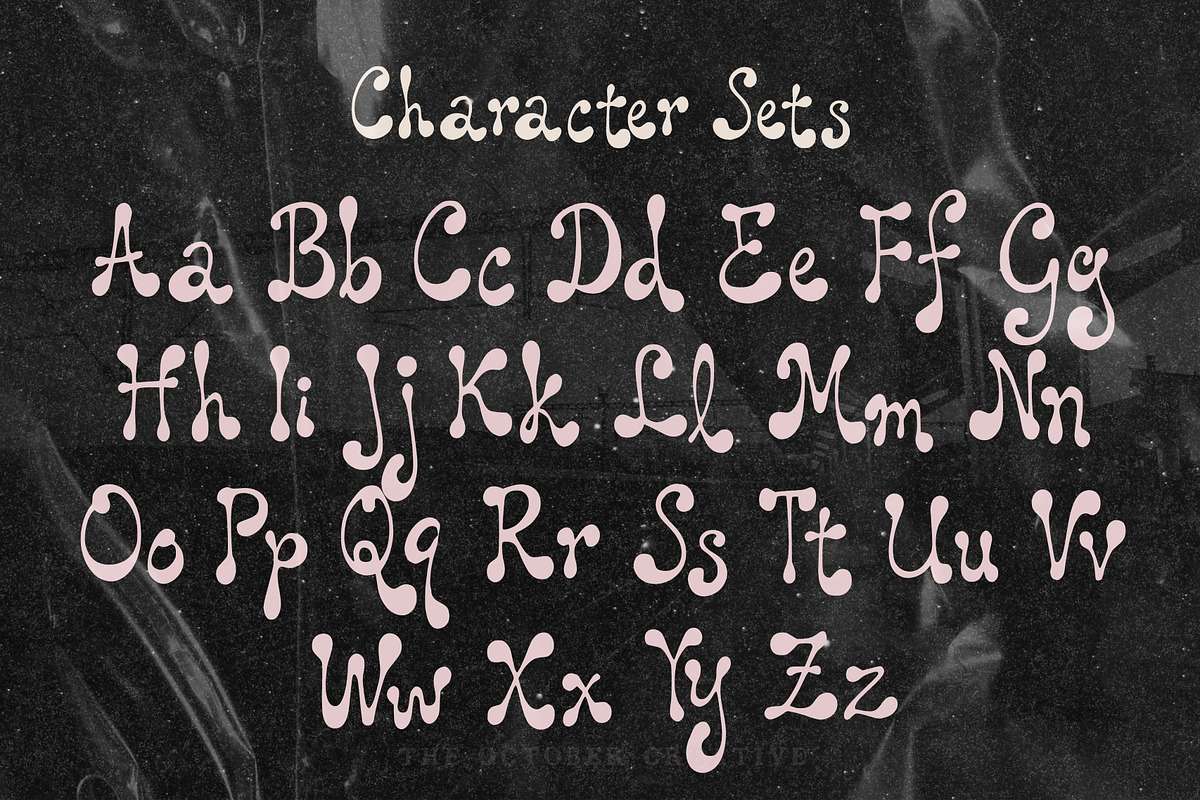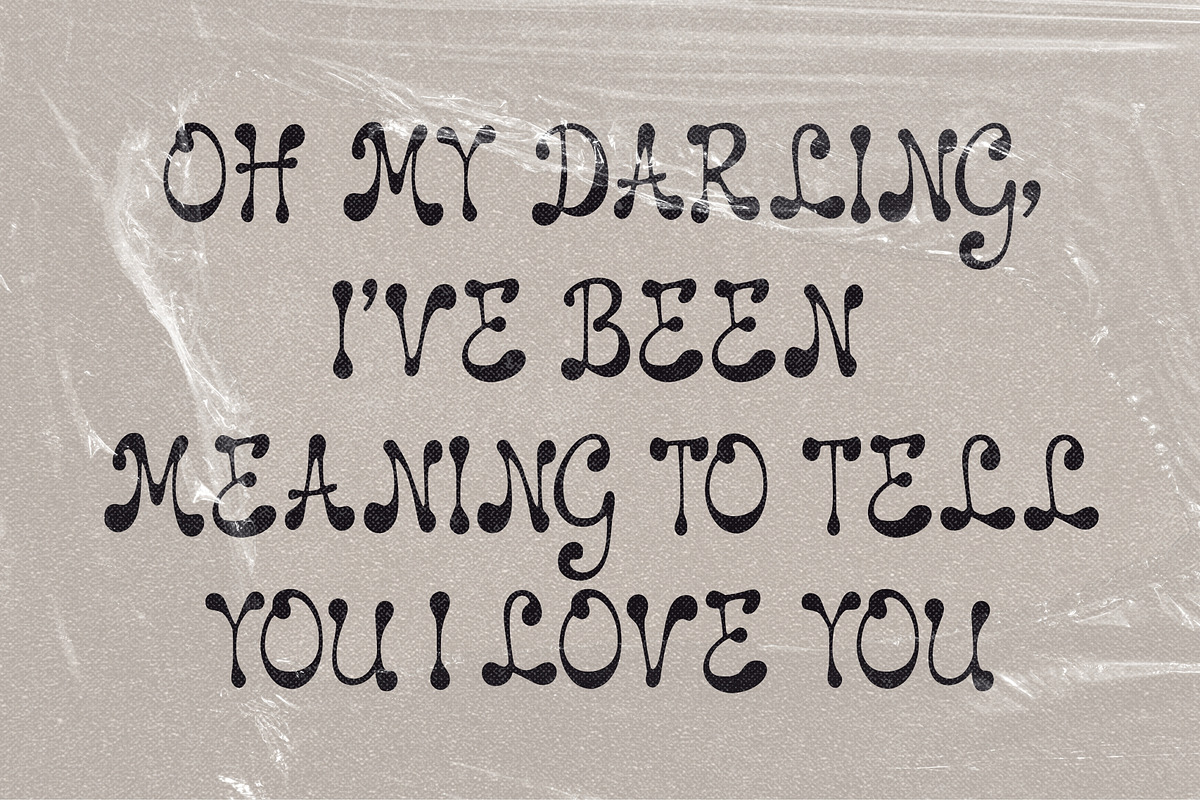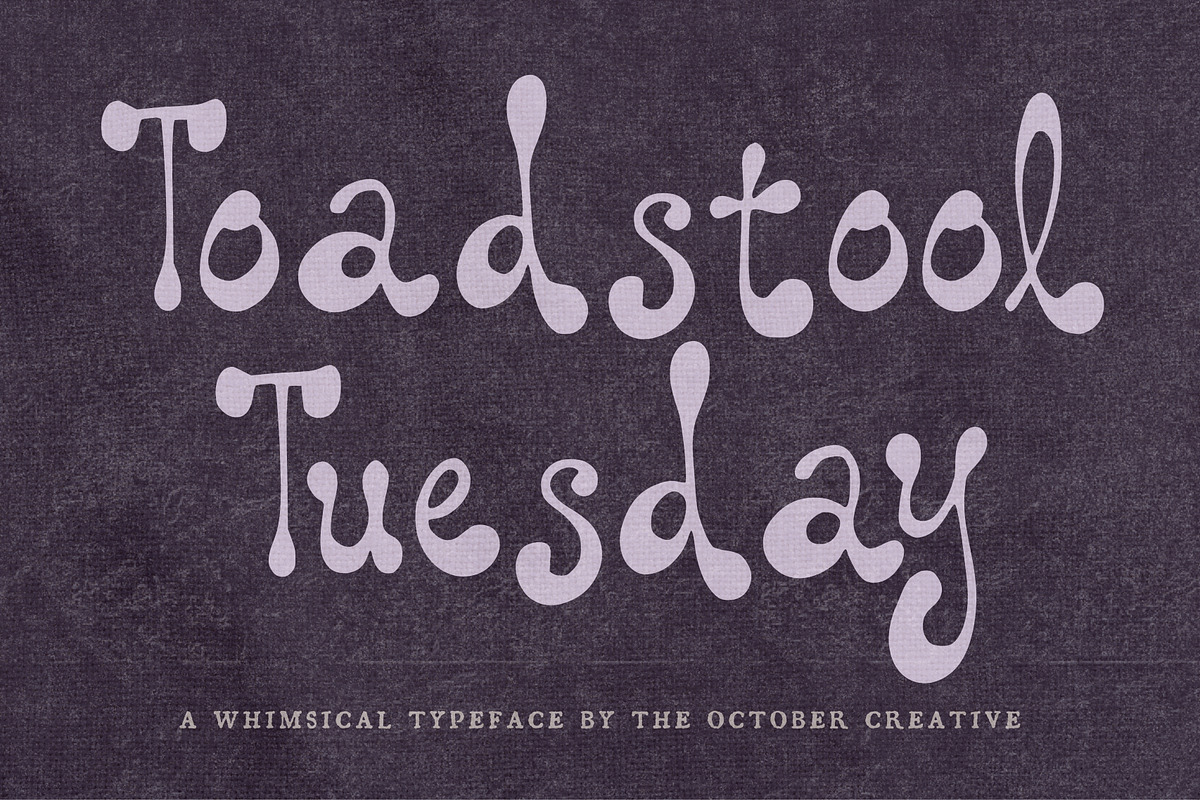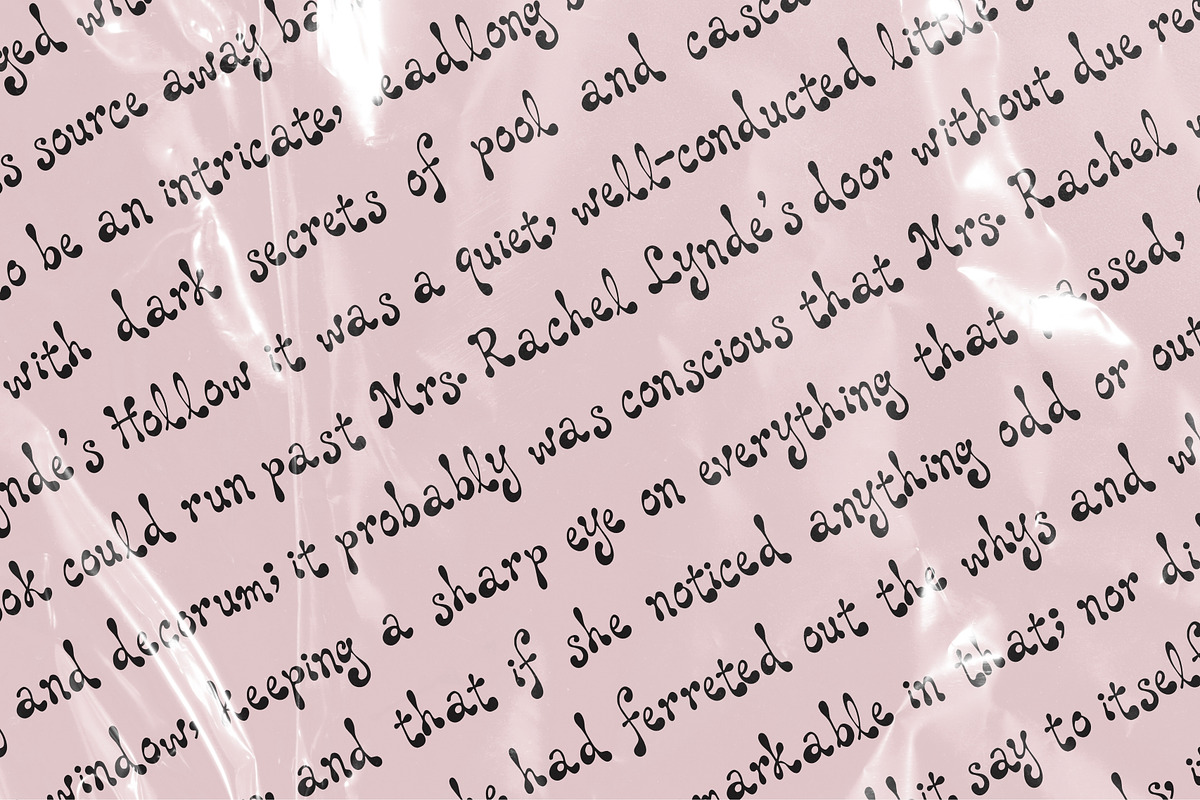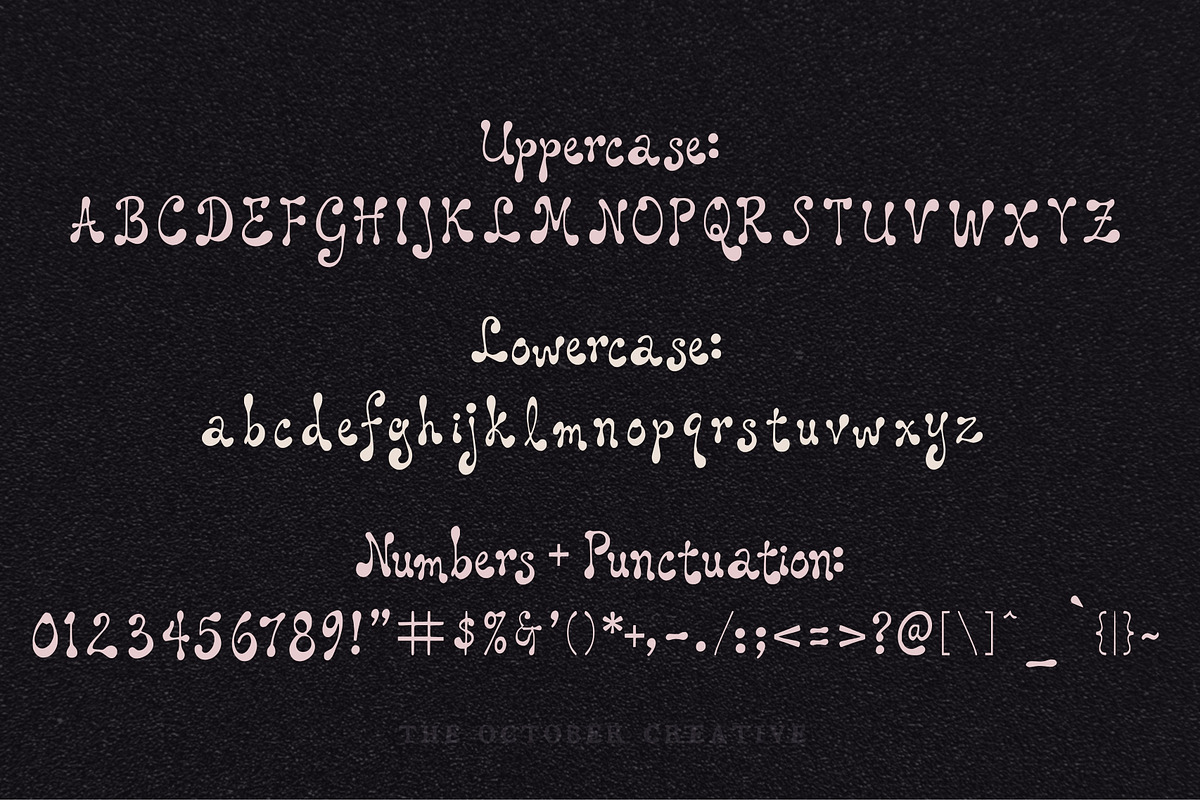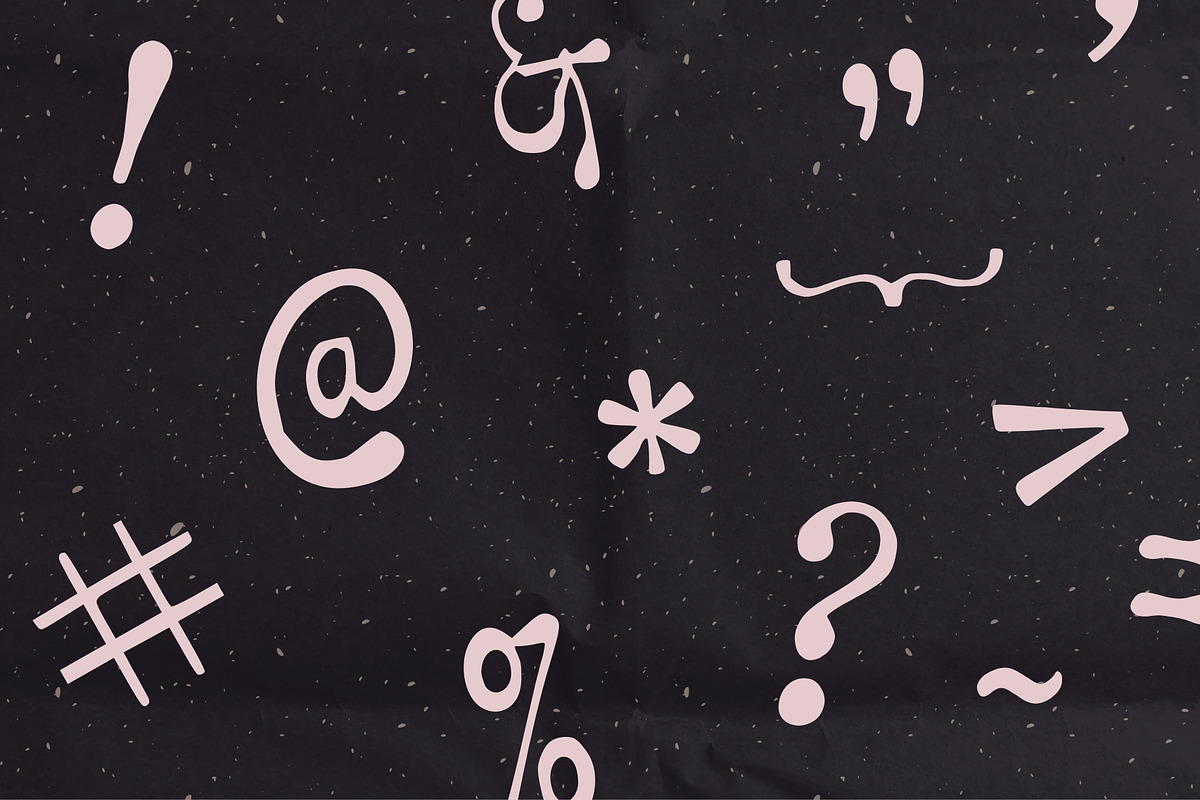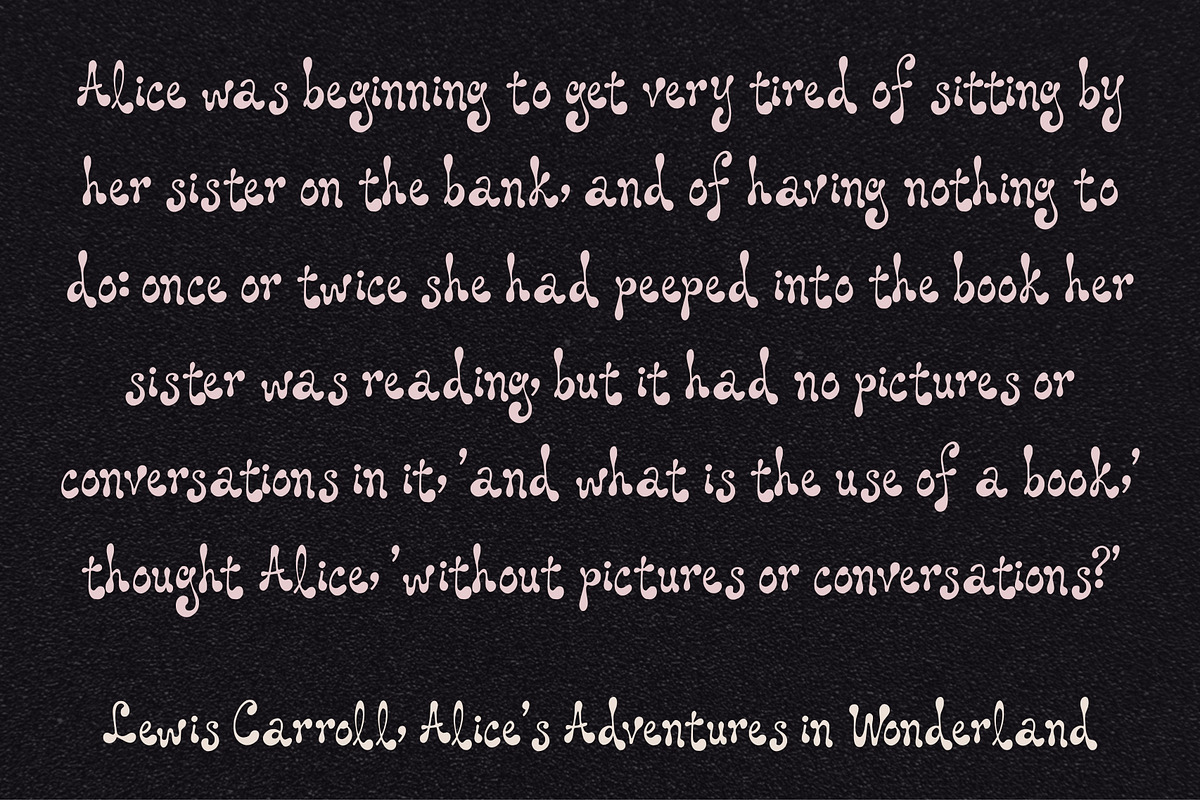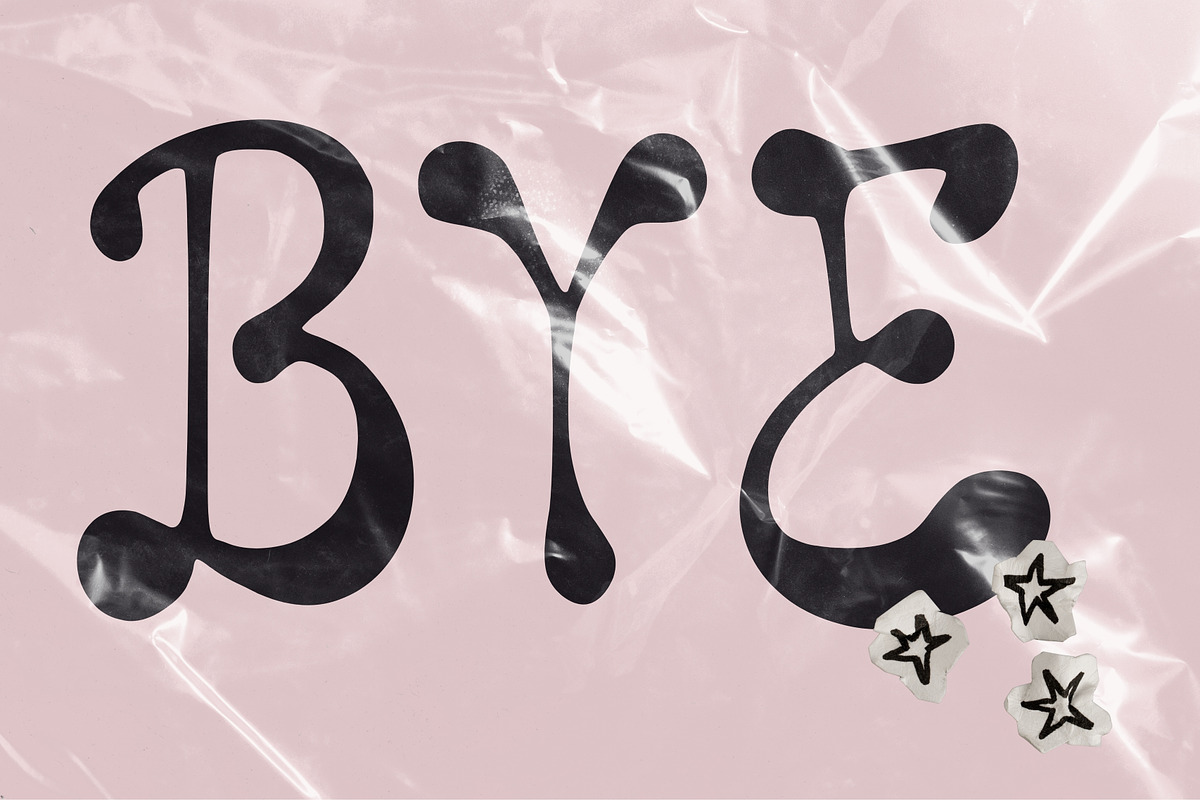
Toadstool Tuesday Retro Folk Display
Toadstool Tuesday is a folk display font with sturdy strokes and a rolling baseline. It fits cottagecore prints, mushroom stickers, woodland signage, and craft fair labels.
CHARACTER SET
Uppercase A to Z, lowercase a to z, numerals 0 to 9, and every standard keyboard punctuation mark and symbol: ! " # $ % & ' ( ) * + , - . / : ; < = > ? @ [ \ ] ^ _ ` { | } \~
Curly quotes and apostrophes (‘ ’ “ ”), en and em dashes, an ellipsis, and a bullet.
Accented letters: À Á Â Ã Ä Å Ç È É Ê Ë Ì Í Î Ï Ñ Ò Ó Ô Õ Ö Ù Ú Û Ü and their lowercase forms.
LANGUAGES SUPPORTED
English, plus the accented vowels, Ñ, and Ç used in names and everyday words in Spanish, French, Italian, Portuguese, German, and Dutch. Not included: ß, Æ, Ø, Œ, and the upside-down ¿ and ¡.
SPECIAL CHARACTERS